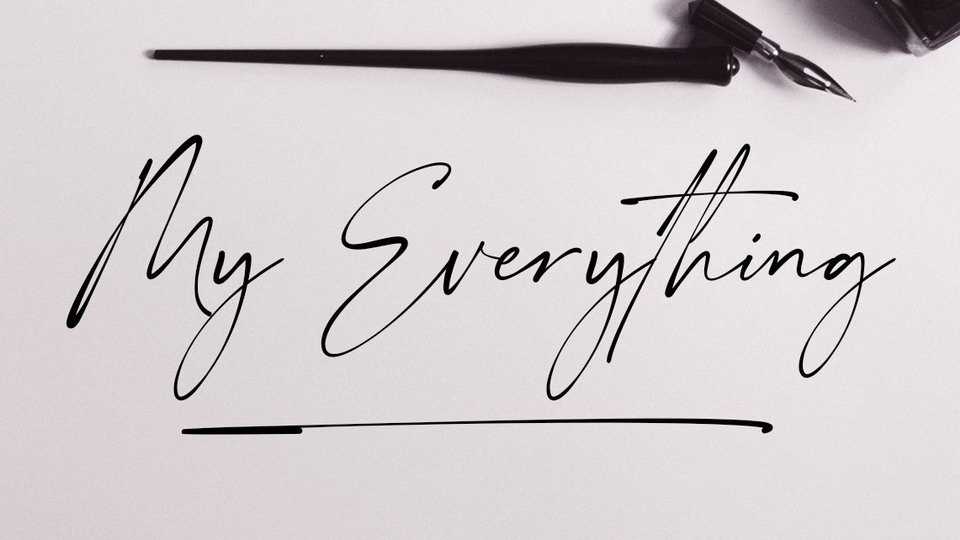
Download My Everything font, an organic script typeface with a fashionable, luxury and super-chilled handwriting style. My Everything font is only for high-end, upscale, sophisticated branding design.
Designer: Typesthetic Studio